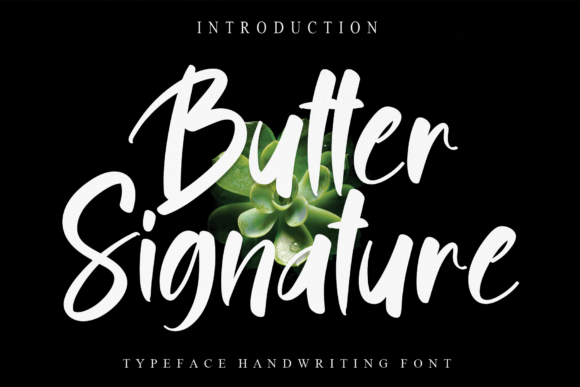
About Butter Signature Font
Butter Signature is a fun and relaxed script font that brings a playful and friendly touch to your designs. With its versatile nature, this font can be used for a wide spectrum of applications, ranging from greeting cards to headlines, and it guarantees to add a friendly and refreshing feel to your next project.
The fun and playful nature of Butter Signature injects a sense of joy and lightheartedness into your typographic compositions. Its whimsical letterforms and energetic strokes create a vibrant and dynamic aesthetic. Whether you’re working on greeting cards, posters, social media graphics, or any other project, Butter Signature font enhances the overall visual appeal with its cheerful and relaxed demeanor.
Butter Signature’s versatility allows it to adapt to various design applications. It can be used for headlines, logos, branding materials, packaging, and more. Its relaxed style adds a casual and approachable vibe to your designs, making them more relatable and engaging.
The friendly and refreshing feel of Butter Signature adds a welcoming and inviting quality to your typographic compositions. Its smooth curves and balanced letterforms create a sense of warmth and comfort. This font brings a touch of friendliness and approachability, making your designs more relatable to your audience.
Incorporating Butter Signature into your projects allows you to infuse them with a fun and relaxed vibe. Its versatility and friendly nature make it suitable for a wide range of design applications, allowing you to explore various creative possibilities.
In summary, Butter Signature is a fun and relaxed script font that adds a playful and friendly touch to your designs. Its versatile nature makes it suitable for various applications, ranging from greeting cards to headlines. Embrace the fun and refreshing feel of Butter Signature font, and let it bring a cheerful and inviting atmosphere to your next project.